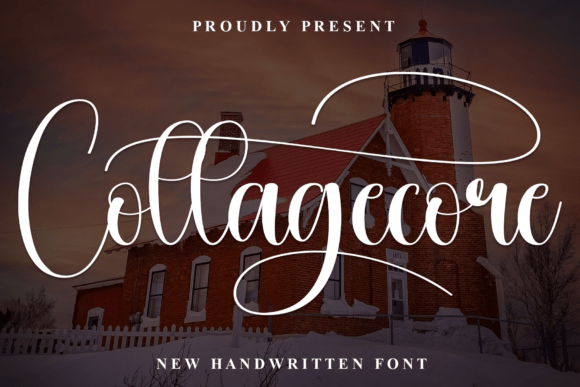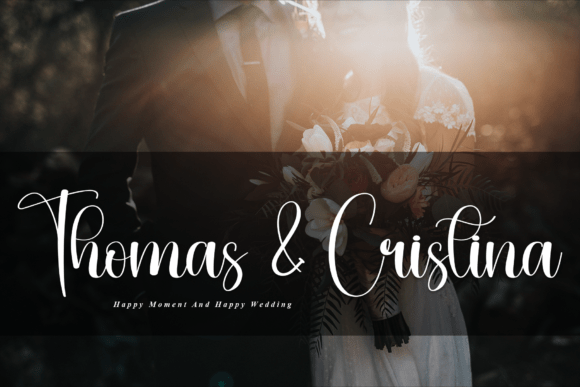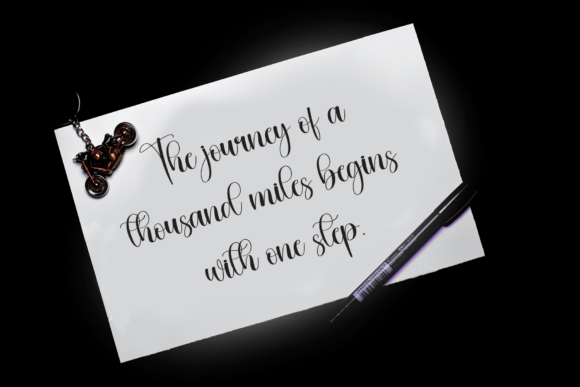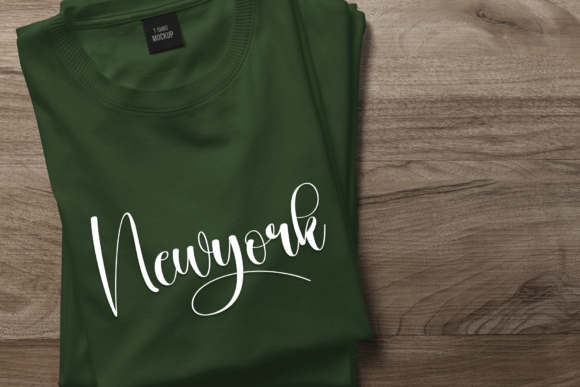
Cottagecore Font
About the Cottagecore Font
We are excited to introduce Cottagecore Font, a must-have typeface for any serious designer. Elegant, flowing, and full of charm — this script font brings a touch of sophistication to any design. Perfect for weddings, branding, social media, and invitations, it features smooth curves and graceful swashes that elevate your text with a handwritten, romantic feel. Whether you’re crafting a signature logo or heartfelt quote, this font adds a personal and stylish flair.
Its romantic, handwritten feel makes it ideal for projects requiring a touch of vintage charm, such as wedding stationery, logos for artisanal businesses, or packaging for beauty products. However, its delicate nature makes it unsuitable for body text or UI elements where readability is paramount. Avoid using it in large blocks of text.
For optimal visual harmony, pair Cottagecore Font with a clean sans-serif like Lato for body copy or a geometric sans-serif like Montserrat for a modern contrast. A serif typeface such as Playfair Display could also work well, adding a touch of classic elegance.
The font’s overall personality is elegant and romantic, yet approachable. It evokes a sense of handcrafted quality and understated luxury.
Cottagecore Font Usage Examples